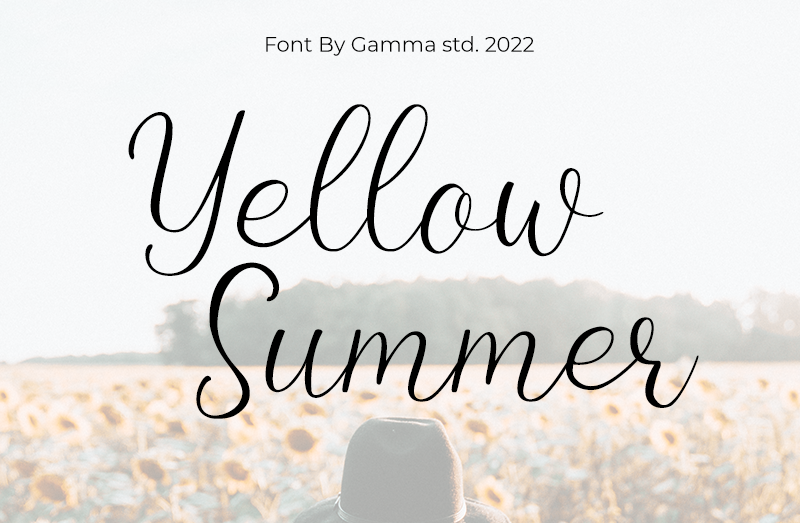
Yellow Summer Font
Designed by Gamma Studio
About Yellow Summer
Yellow Summer is a beautiful script font. Its refined style will give an elegant and modern look to any of your creative projects such as logos, branding, invitations, stationery, wedding designs, social media posts, and many more!